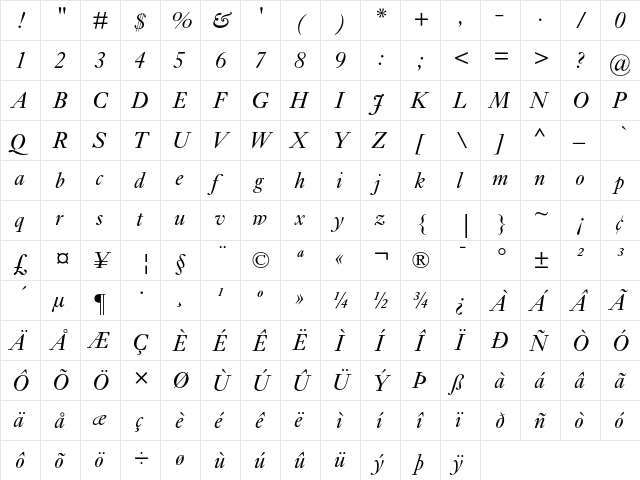
Ehrhardt MT Italic
Design Context for Ehrhardt MT Typeface
Ehrhardt MT takes a measured approach to typography — its balanced proportions and neutral character make it a reliable workhorse for both digital and print work. The dynamic lean of this cut emphasises speed and emphasis in any layout.
Pro Tip: Try Ehrhardt MT for annotation and caption copy alongside an upright companion — the contrast in angle creates a dynamic but ordered typographic system.